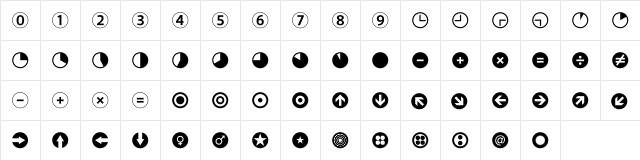
Leitura Symbols Circles
| Foundry | Dino dos Santos _DSType |
| Designer | Dino dos Santos |
Design Context for Leitura Symbols Typeface
Leitura Symbols is a composed and adaptable typeface that performs quietly and consistently across a wide range of design contexts.